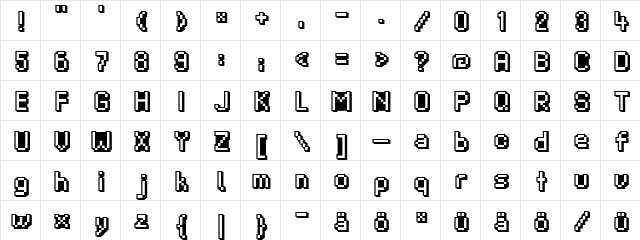
zedfox in Regular Font Preview
zedfox in Regular
zedfox in Regular Font Details
| Designer | spacefox |
Design Context for zedfox in Typeface
zedfox in offers clean, dependable letterforms without strong stylistic allegiance, making it a practical choice for designers who need flexibility.